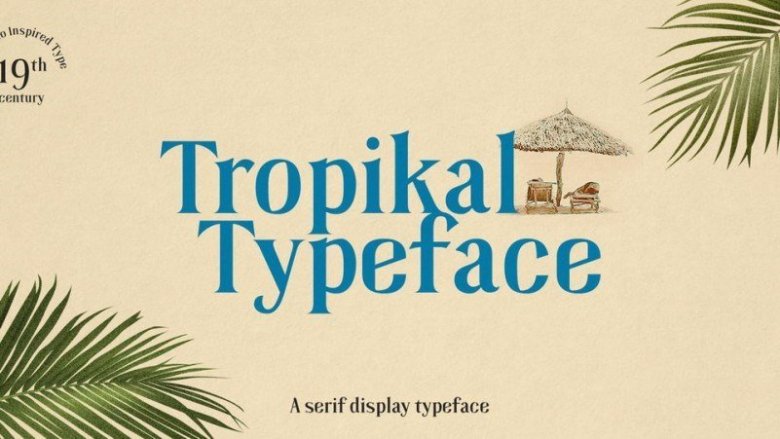
Tropikal Display Serif Typeface
Tropikal Display Serif Typeface is a vintage modern typeface coming with elegance and adventure in mind. This typeface came from the curiosity of what old Philippine type would look like in today’s modern landscape.
Moreover, it is a modern rendition of an old style serif typeface inspired from the nineteenth-century Philippine bank notes, newspapers and packaging designs.